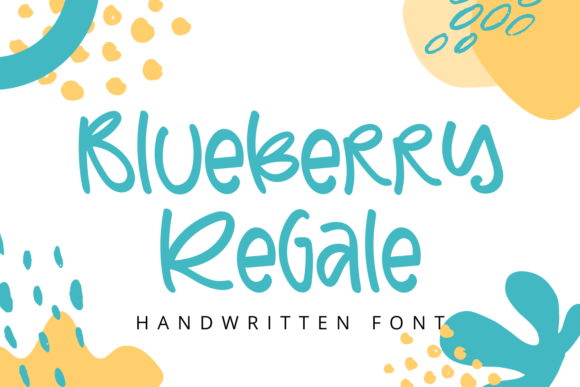
The Blueberry Regale Font: A Game-Changer for Creative Projects
I’ll never forget the struggle I faced while working on a branding project for a local bakery. My client wanted a font that would make their logo stand out, but I was stuck in a creative rut. That’s when I stumbled upon the Blueberry Regale font, and it completely transformed my design. In this article, I’ll share my experience with this unique handwritten font, its features, and how to make the most of it in various design platforms.
• 💕 Unique and eye-catching: Blueberry Regale has a distinct, hand-crafted feel that adds a personal touch to any design.
• ✅ Highly versatile: This font can be used for a wide range of projects, from branding and logos to social media graphics and invitations.
• 🎨 Excellent for illustrations: The font’s playful, cursive style makes it perfect for illustrations, especially those that involve food, nature, or whimsical themes.
• ⚠️ Legibility at small sizes: While Blueberry Regale looks stunning at larger sizes, it may become less legible when used at smaller sizes (e.g., below 10pt). Be mindful of this when designing for print or digital platforms.
• 🤔 Limited use for formal designs: Due to its playful, handwritten nature, Blueberry Regale might not be the best choice for formal or corporate designs, such as business reports or official documents.
The Story Behind Blueberry Regale: Designer Inspiration
Blueberry Regale was created by a talented type designer who wanted to craft a font that would evoke the feeling of a warm summer day. Inspired by the sweetness of fresh blueberries and the regality of a summer evening, this font combines playfulness with sophistication. The designer’s goal was to create a font that would make creative projects stand out, and Blueberry Regale certainly delivers.
What type of projects is Blueberry Regale best suited for? Blueberry Regale is perfect for creative projects that require a personal touch, such as branding, logos, social media graphics, and illustrations.
Is Blueberry Regale a difficult font to read? While Blueberry Regale is a decorative font, it can be legible at larger sizes. However, it may become less readable at smaller sizes, so use it judiciously.